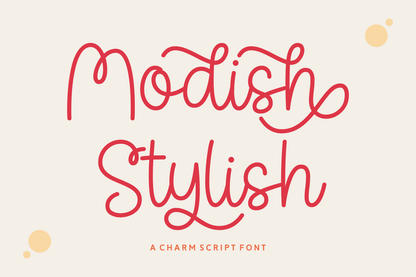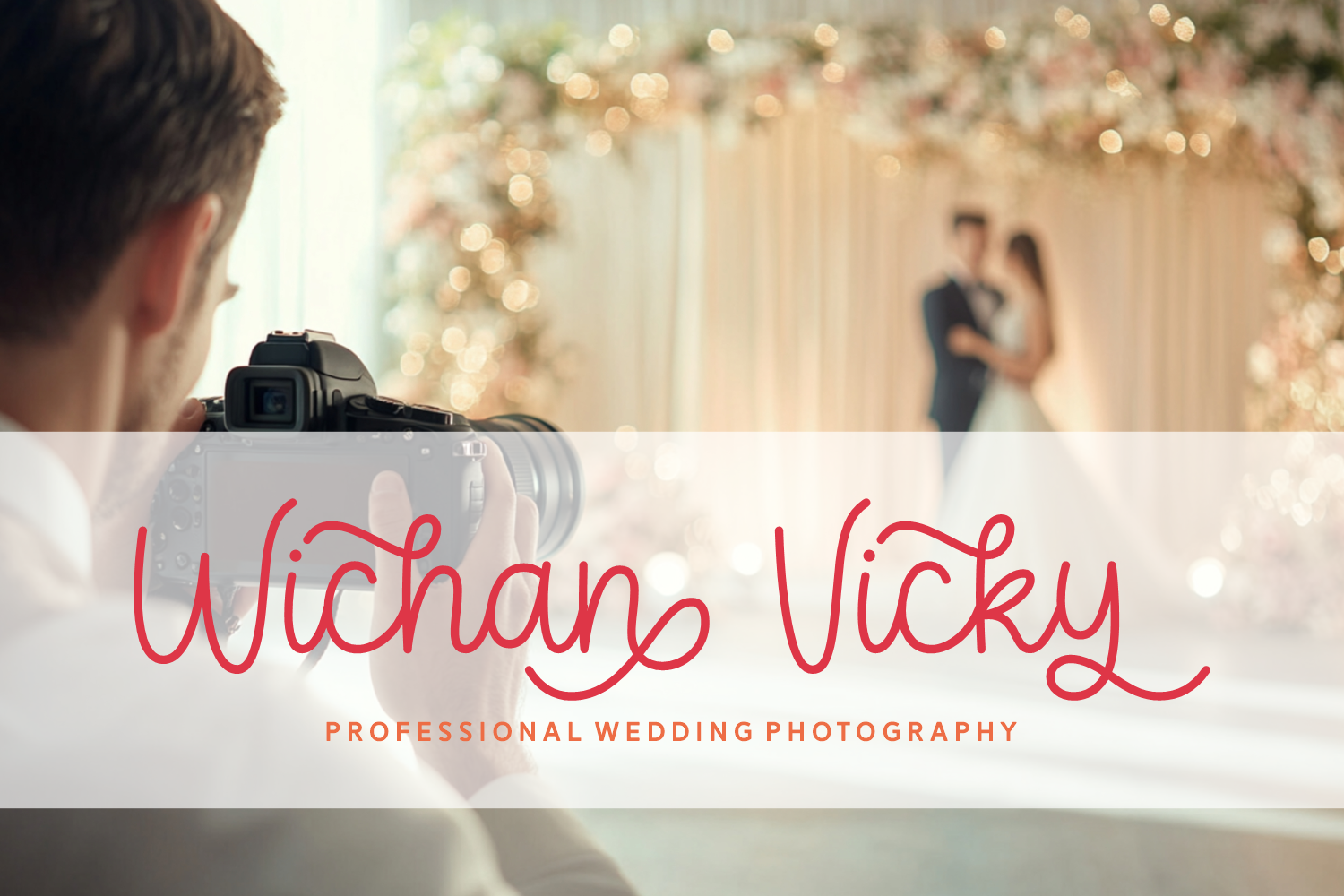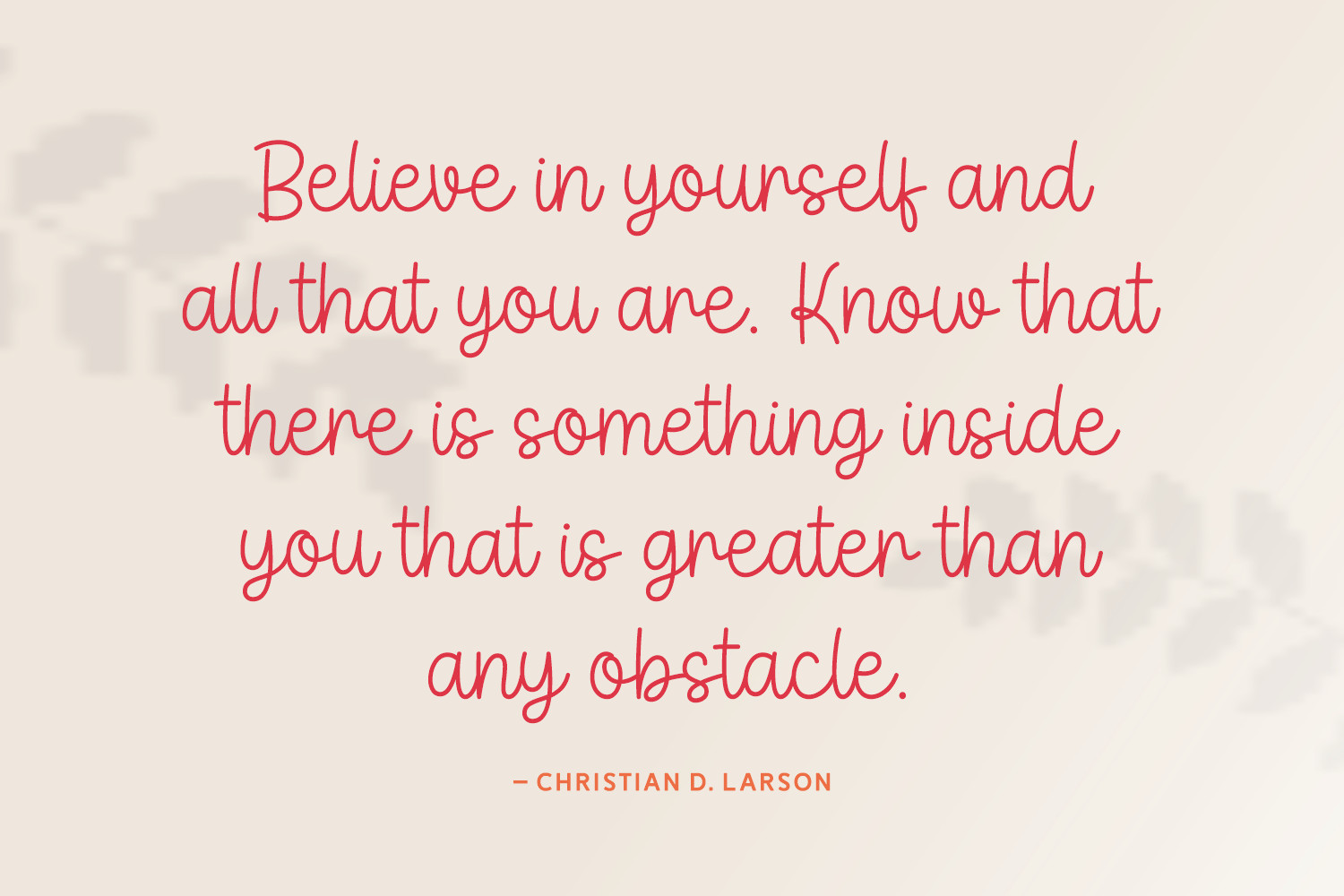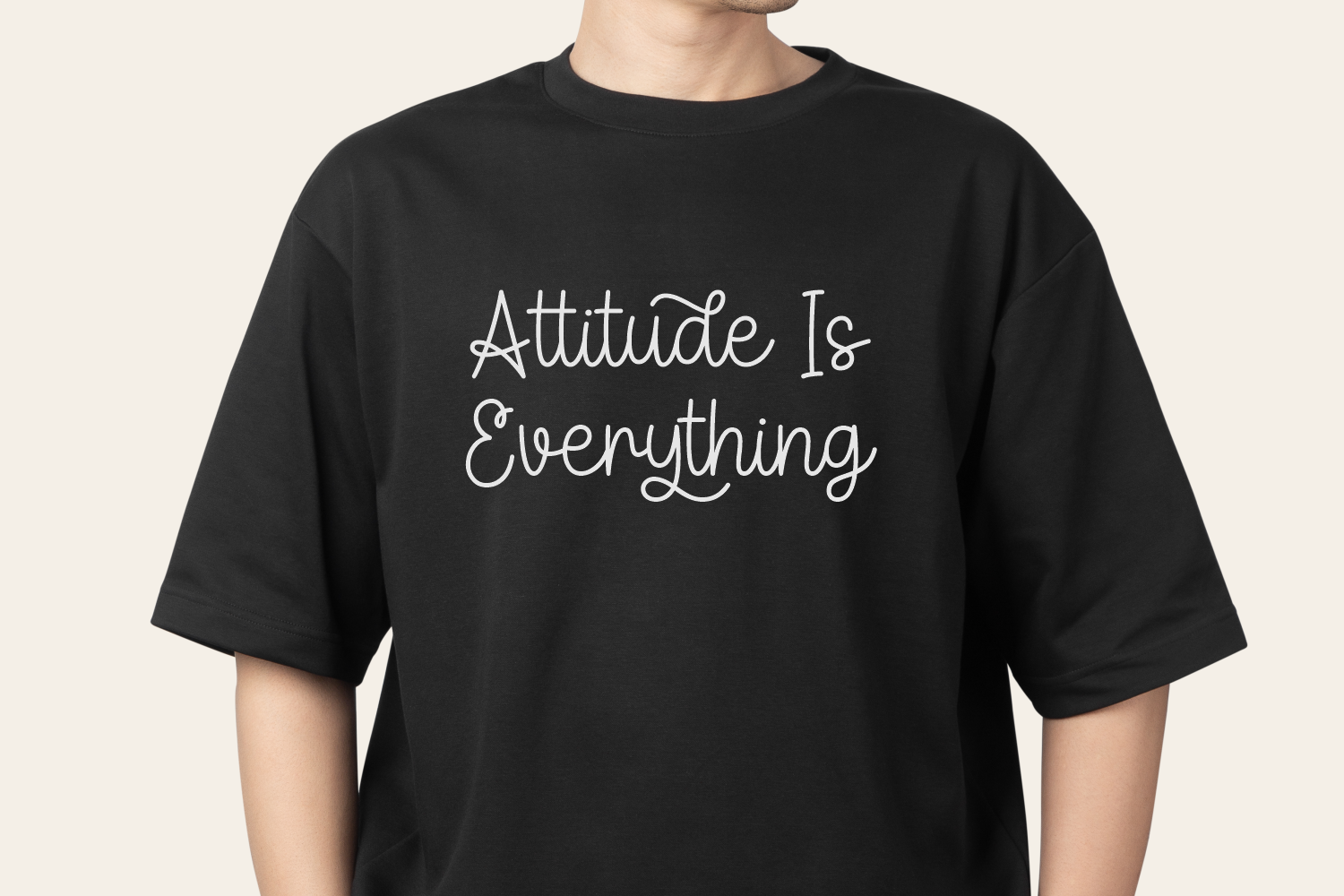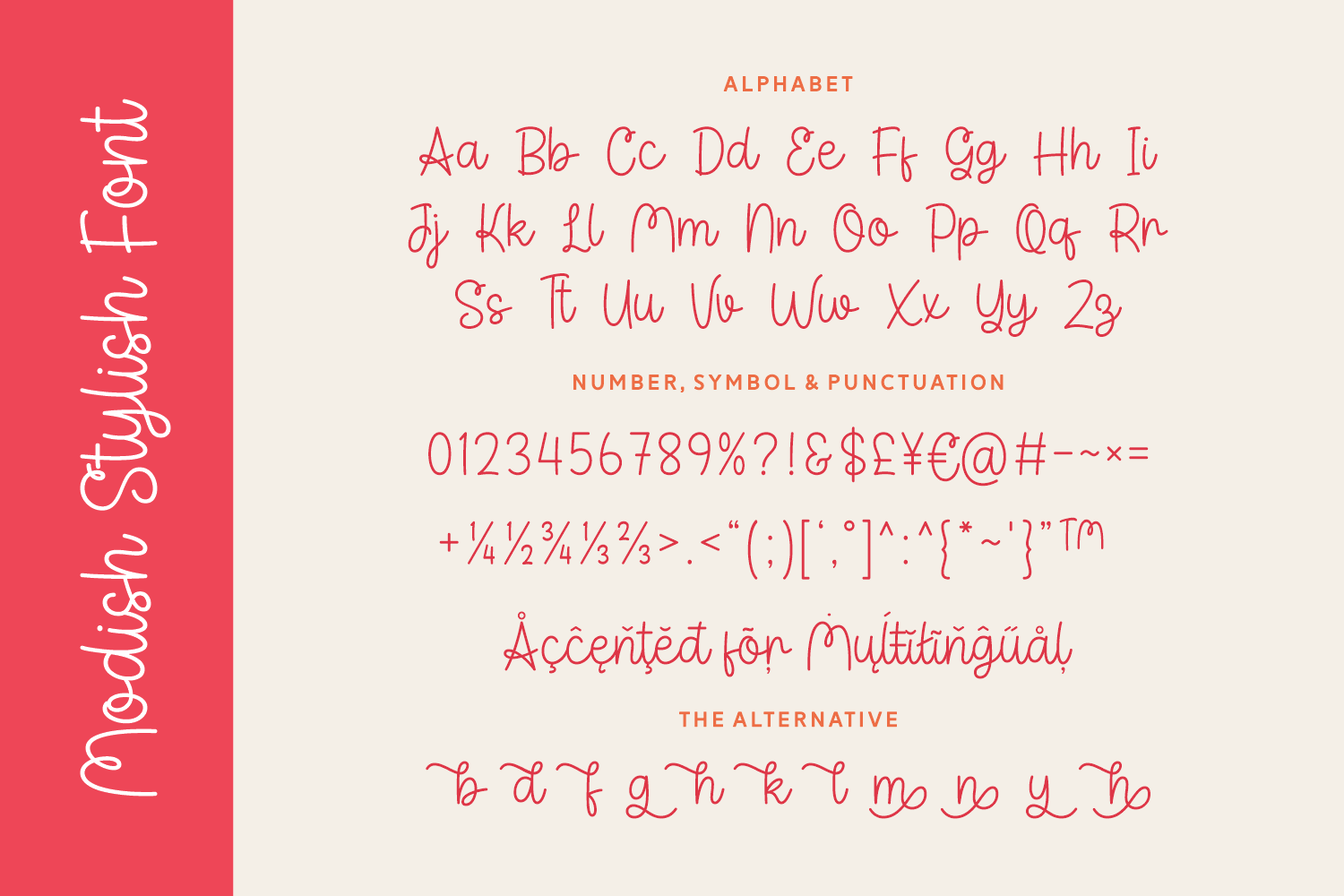
Modish Stylish
Modish Stylish is a cheerful and expressive charm script font that radiates personality and flair.
Featuring a complete character set including uppercase, lowercase, numerals, symbols, punctuation, and multilingual accents, Modish Stylish also offers a delightful collection of alternate glyphs to boost creativity.